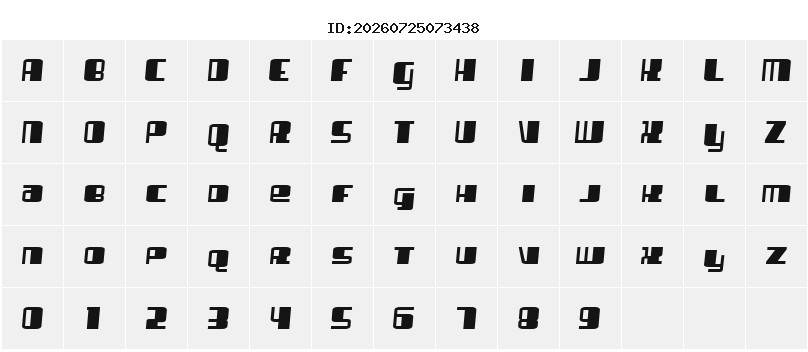
Girlfriend Preview
• Font Name: Girlfriend
• Full Font Name: Girlfriend
About Girlfriend.ttf
Girlfriend.ttf is a modern, elegant sans-serif font designed for ultimate readability and visual harmony. Perfect for branding, headlines, web design, and print materials.